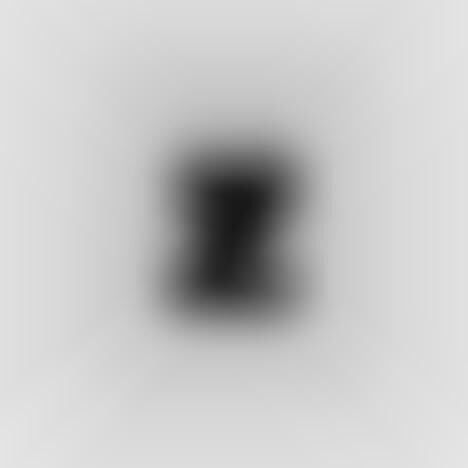
There are many popular typefaces out there for illustrators, writers and graphic designers to use, but can you really choose just one? Now thanks to Moritz Resl you can choose to use The Average Font, a typeface that layers hundreds of often used fonts overtop of one another to create one ultimate font.
The Average Font is a collaborative work that pulls together the aesthetic look of a wide variety of typefaces. Over 900 fonts were stacked on top of one another to create The Average Font. The layered look of all these similar typefaces created an interesting ghost-like shadowing caused by the slight difference in font sizes. The Average Font is meant to be the median between each of these 900 fonts.
Ghostly Layered Typefaces
Moritz Resl Stacked Popular Typefaces to Create the Ultimate Font